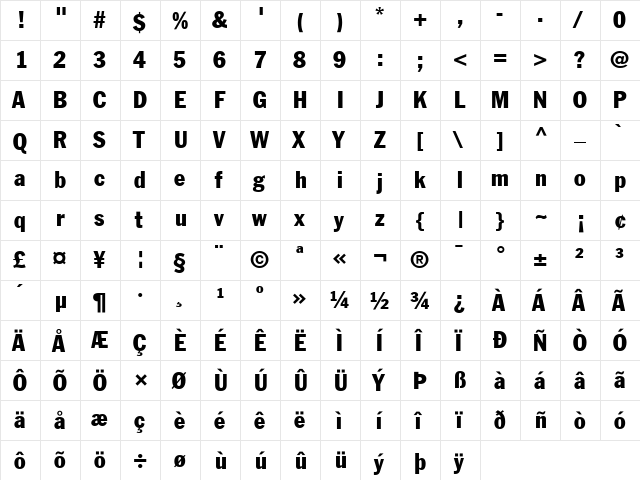
FrancoisCondensed
Design Context for FrancoisCondensed Typeface
FrancoisCondensed offers clean, dependable letterforms without strong stylistic allegiance, making it a practical choice for designers who need flexibility. The condensed width makes it efficient for tight spaces without sacrificing legibility.
Pro Tip: Pair FrancoisCondensed with a font of contrasting weight or personality to build a more expressive typographic hierarchy.